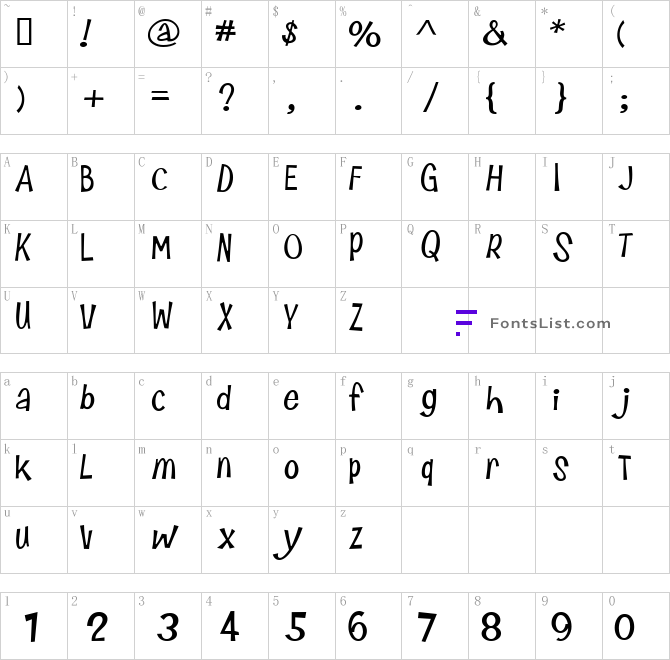
- Font Name:AL HairBrained
AL-HairBrained.ttf is a very beautiful artistic font, AL-HairBrained.ttf is widely used in the design and printing of various books and pictures,AL-HairBrained.ttf has a strong visual impact,AL-HairBrained.ttf is a commonly used font in newspapers, magazines and books, and is used in posters, e-commerce Poster design, store design, logo design, font design and other fields.AL-HairBrained.